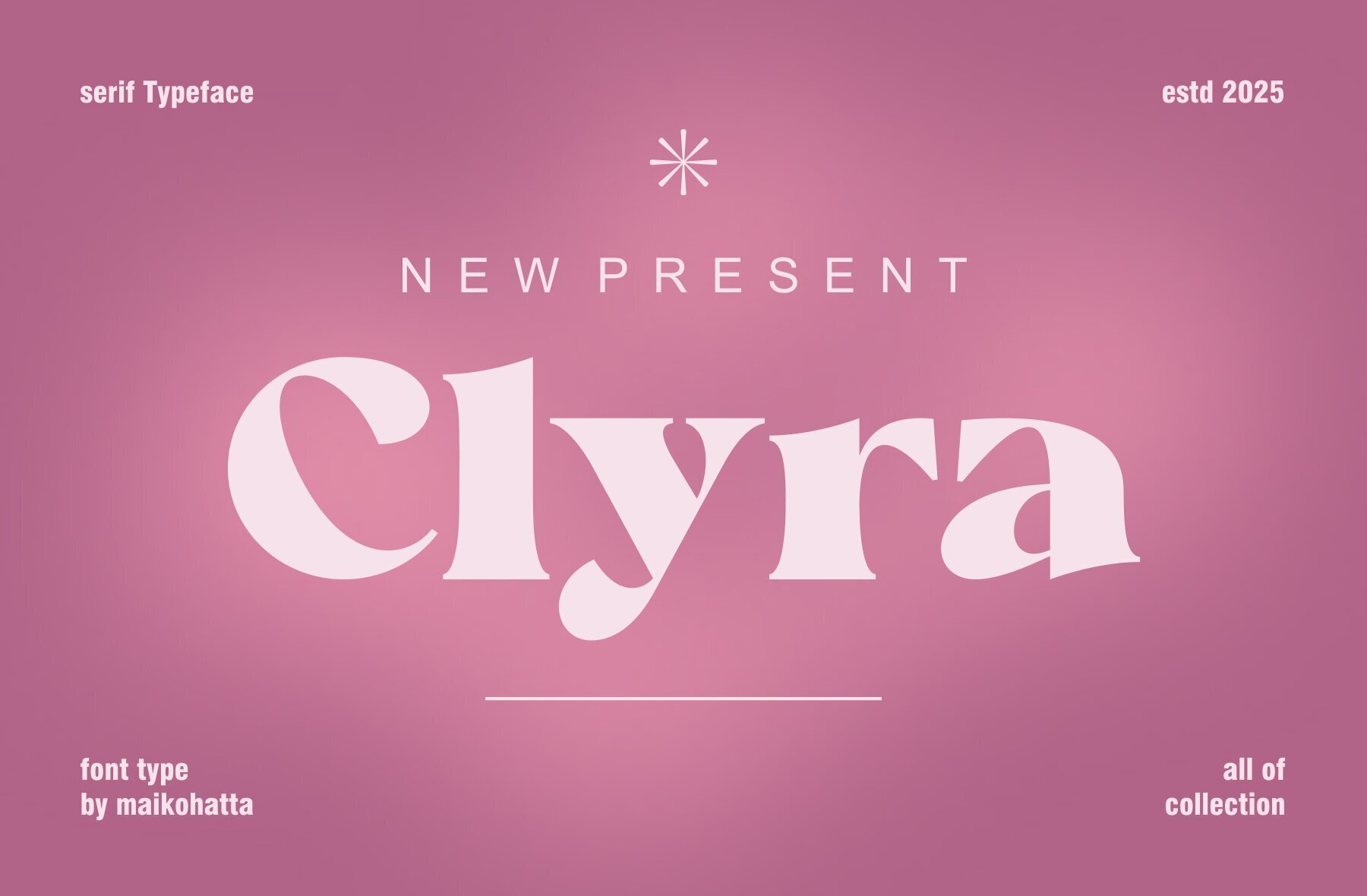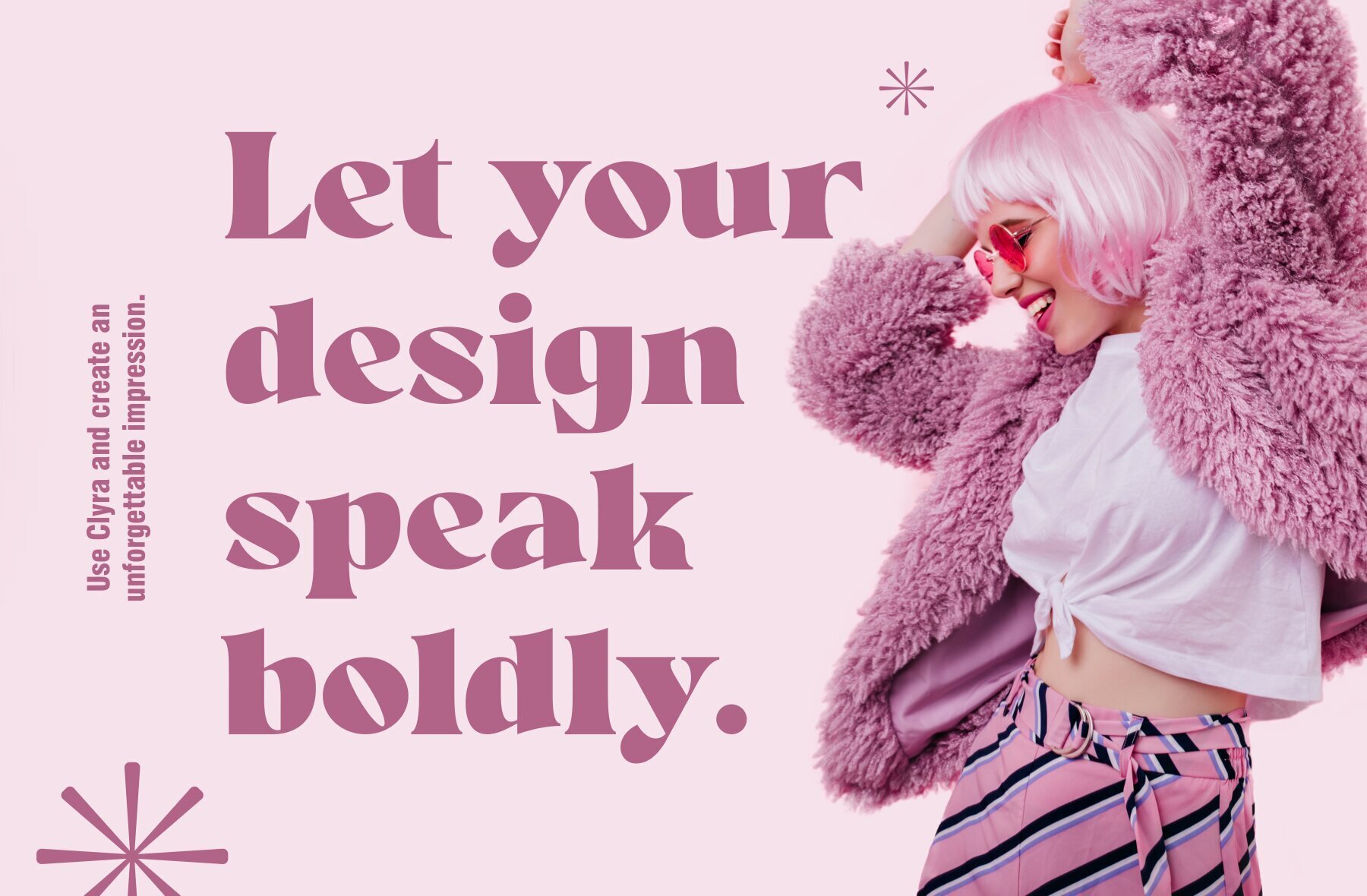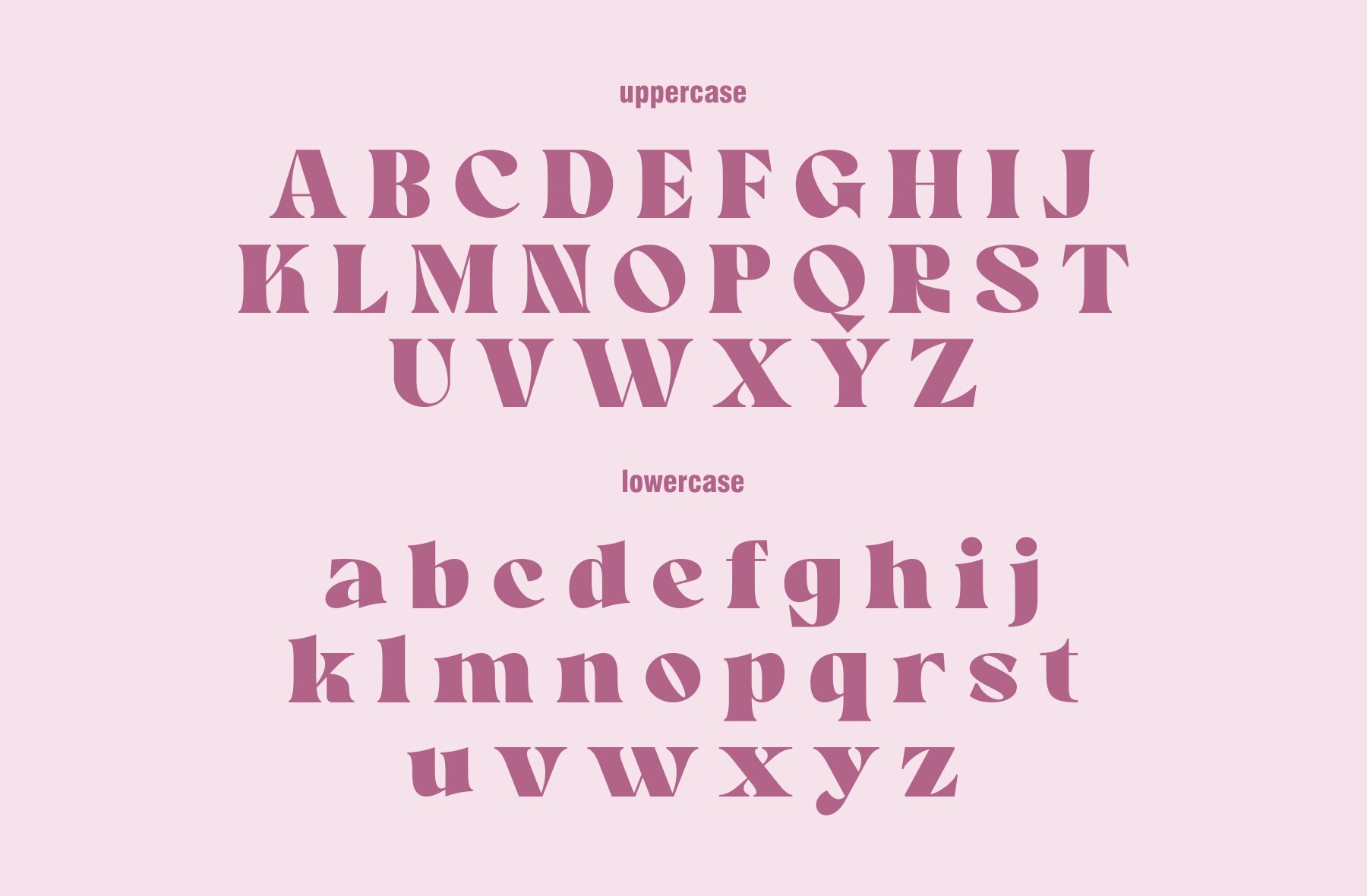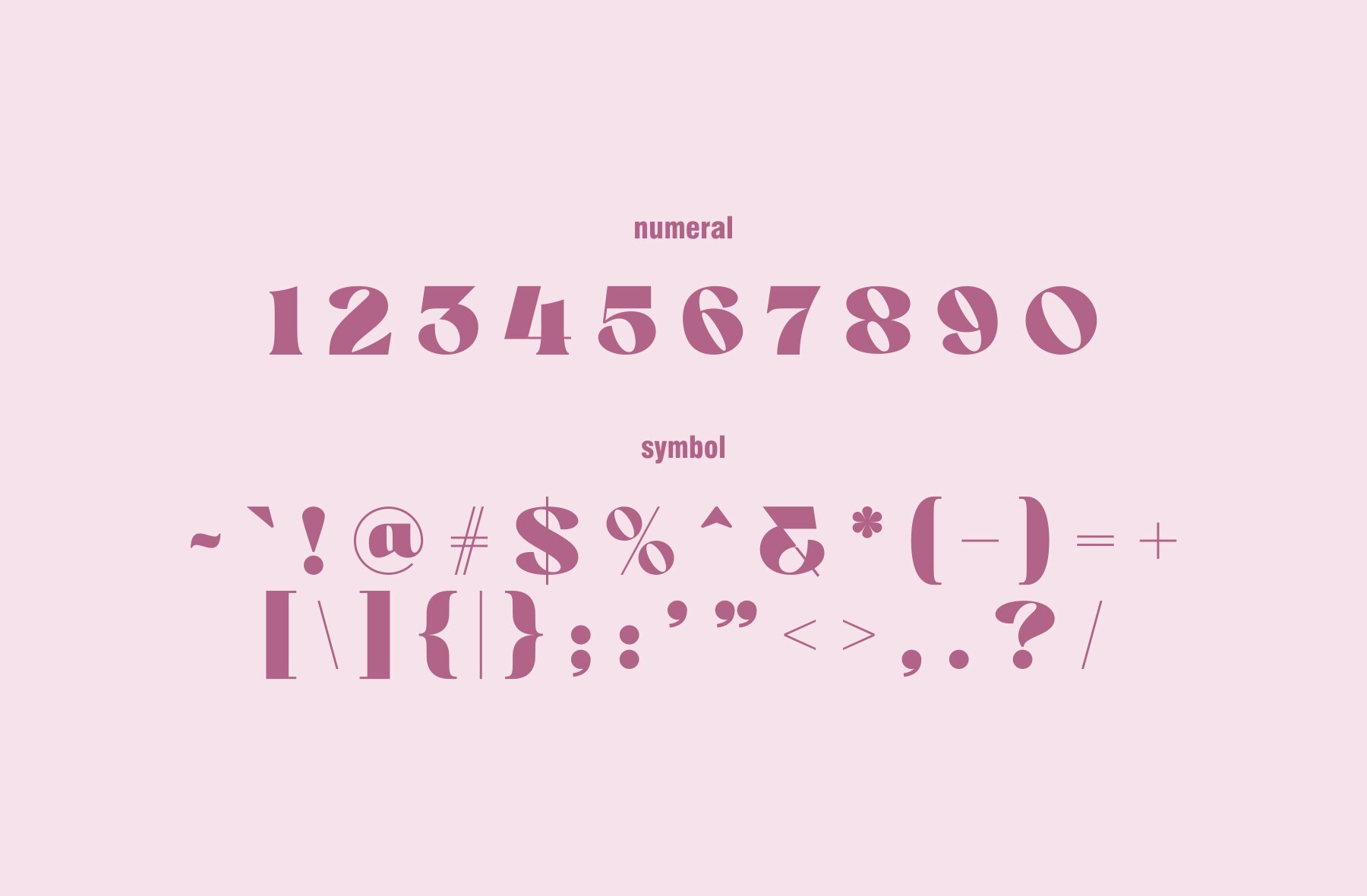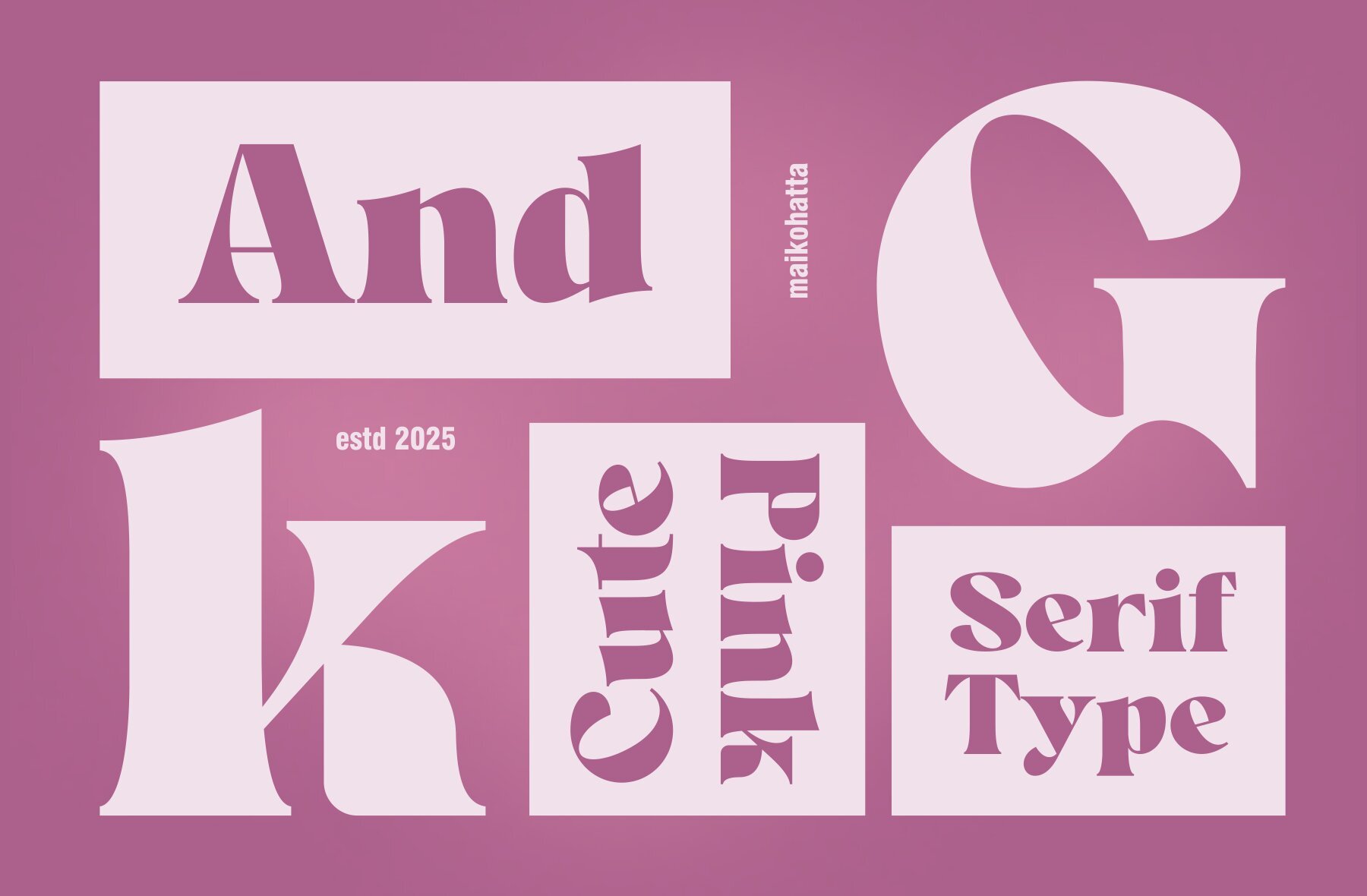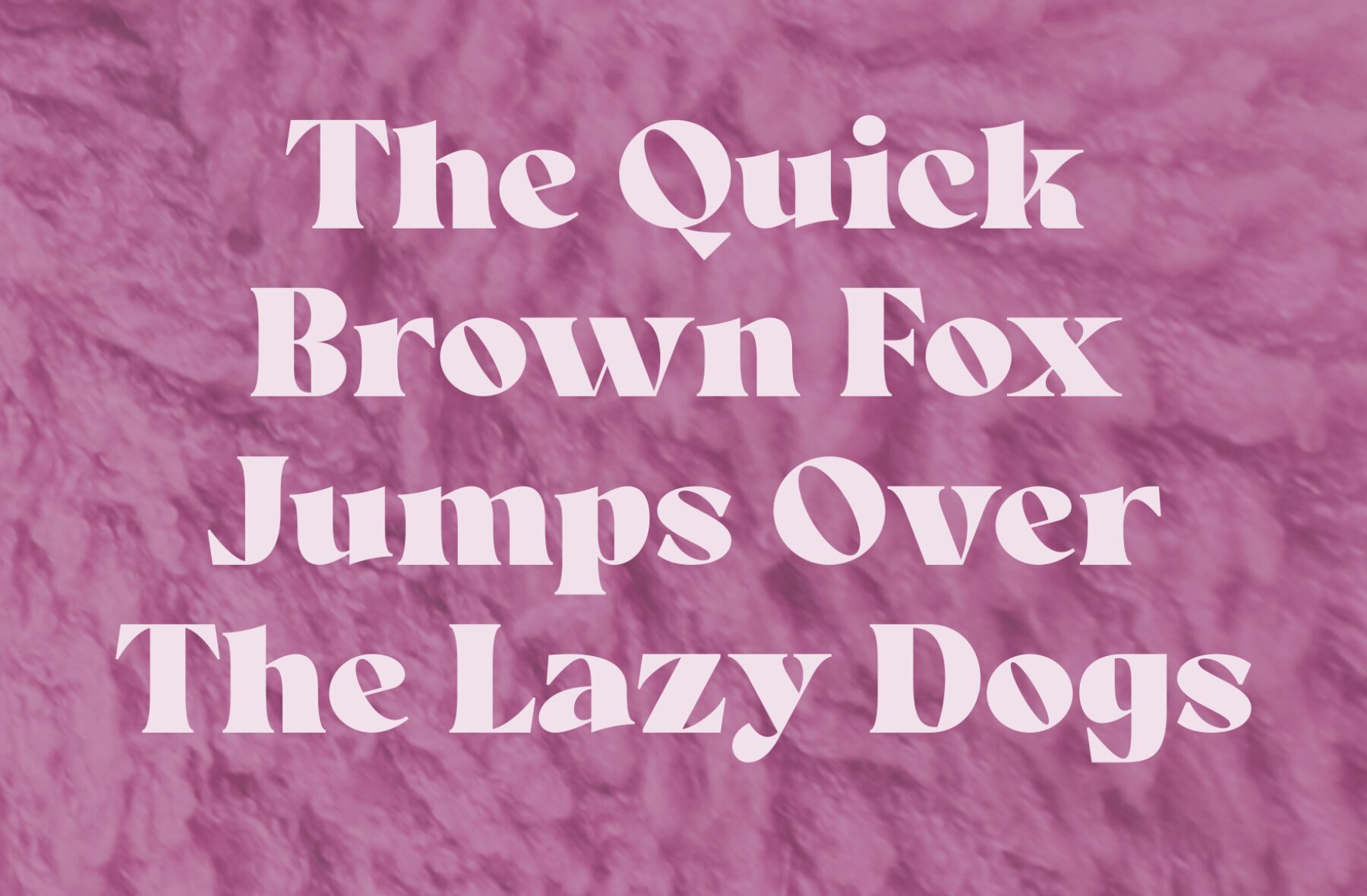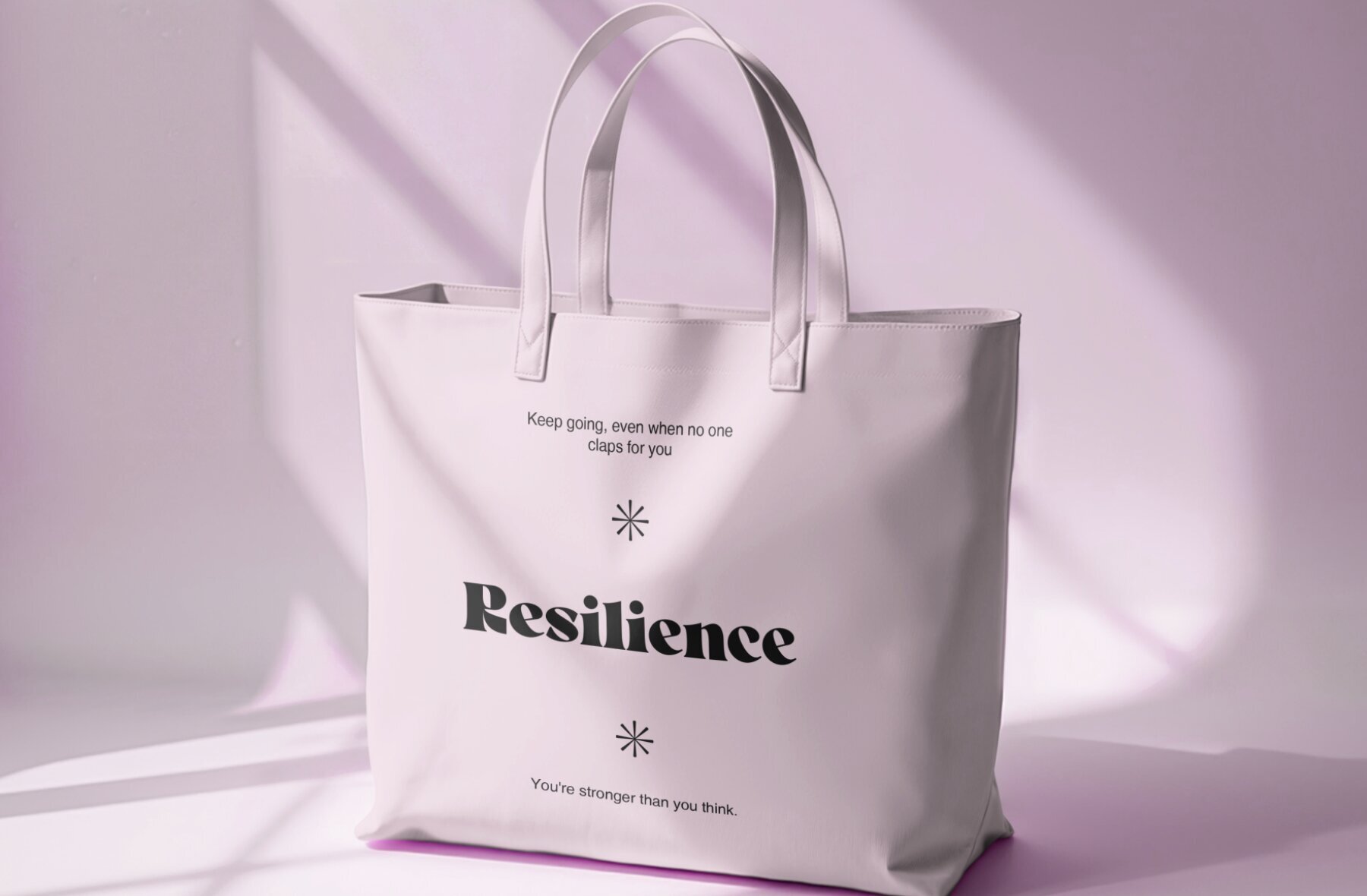
Clyra Font
Clyra
Discover Clyra, the serif typeface that embodies elegance and sophistication. With its graceful curves, high contrast strokes, and timeless proportions, Clyra is designed to enhance any design project. Whether you're working on editorial layouts, branding, wedding invitations, or luxury packaging, this typeface brings a refined touch to your creations. Its classic serif elements paired with a modern flair ensure both beauty and readability. Embrace Clyra's charm and confidence in your next magazine cover or fashion label.Clyra: Elegant Serif Typeface